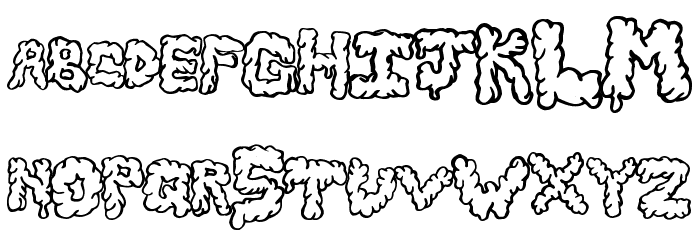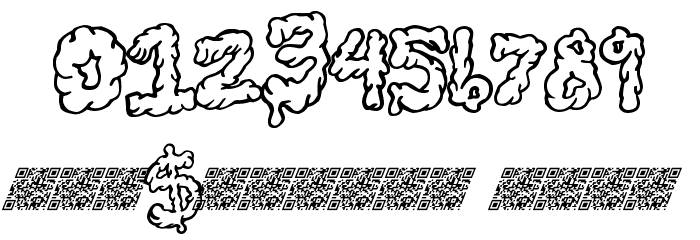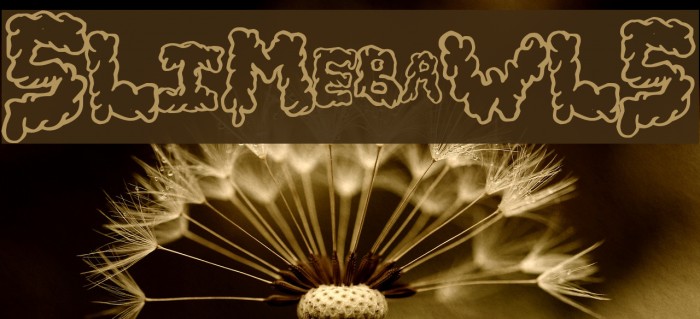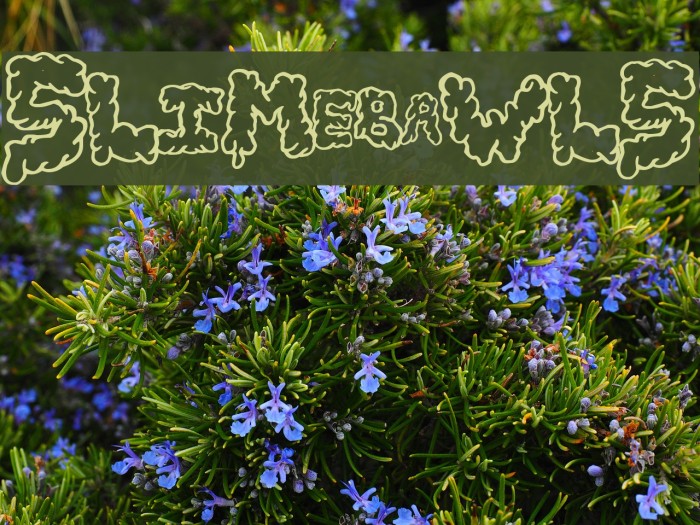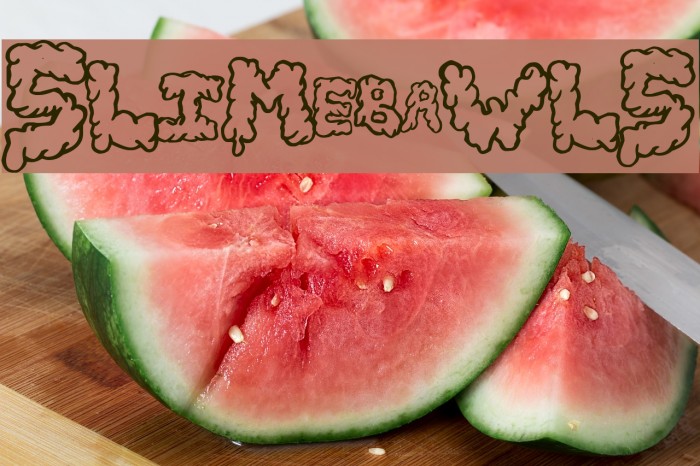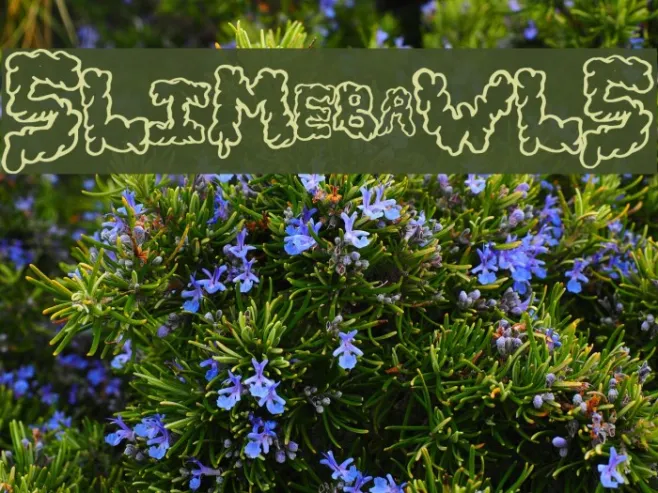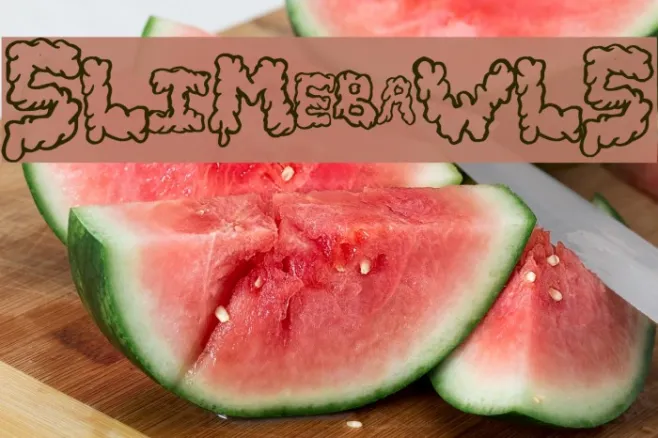
SlimeBawls Font
This font features a playful and gooey design, reminiscent of dripping slime or melting wax. Each character is uniquely crafted with irregular, wavy edges that give it a dynamic and fluid appearance. The bold outlines enhance its visibility, making it suitable for eye-catching designs. The font maintains a consistent style across uppercase, lowercase, and numerical characters, ensuring a cohesive look. Special characters are also included, maintaining the same whimsical and organic theme. This font is perfect for projects that require a fun and unconventional aesthetic.
A playful, gooey font with a dripping slime effect.
- Proposed Projects: Ideal for Halloween-themed designs, children's book covers, playful posters, and creative branding.